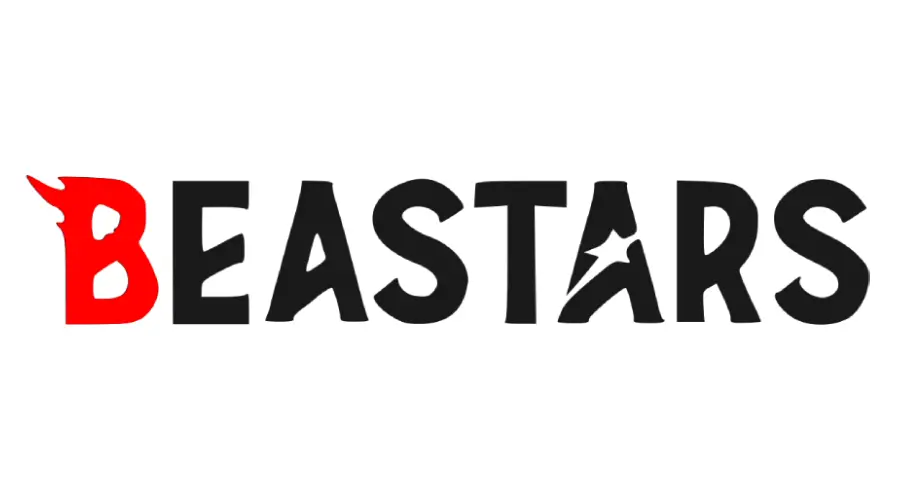
The Beastars Font is associated with the Beastars. Beastars (stylized in all caps as BEASTARS) is a Japanese manga series written and illustrated by Paru Itagaki. It originated in 2016 when it began serialization in Akita Shoten’s shōnen manga magazine Weekly Shōnen Champion. The series is set in a world of anthropomorphic animals where there’s a cultural divide between carnivores and herbivores, with laws prohibiting the consumption of meat.
The idea started in Itagaki’s short stories called “Beast Complex.” She loved Disney animal films as a kid, so she kept the talking-animal idea and built Beastars from there.
Branding and Logo Design
The Beastars logo isn’t hand-drawn; it’s actually a modified version of Burford Rustic Book Black, a vintage-style font made by designer Kimmy Kirkwood.
To get that gritty, scratched look, the team used the font’s “alternate” letters (think of them as stylistic extras). Once they found the combo they liked, they stuck with it: the same rough word-mark shows up on CD covers, Blu-ray cases, shirts, and just about everything else official.
Similar Fonts to Beastars Font
Based on findings, the following fonts closely resemble the Beastars logo style:
Beastars by Mucrush: A replica font designed to match the logo’s style.
Fonstars by Ripoof: Another replica font inspired by the Beastars branding.
The real logo uses a tweaked version of a font called Burford Rustic. If you just want something close, grab the free fan fonts “Beastars” or “Fonstars”; they already have the rough look and built-in slash.